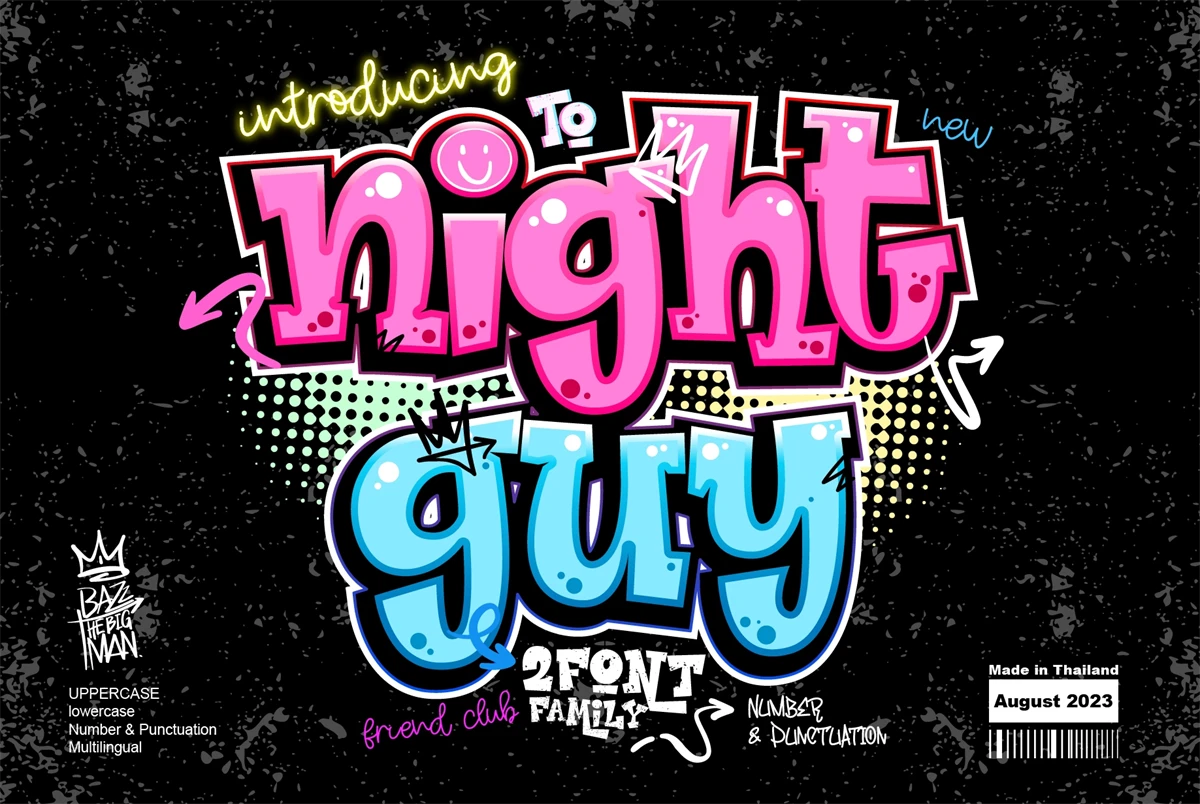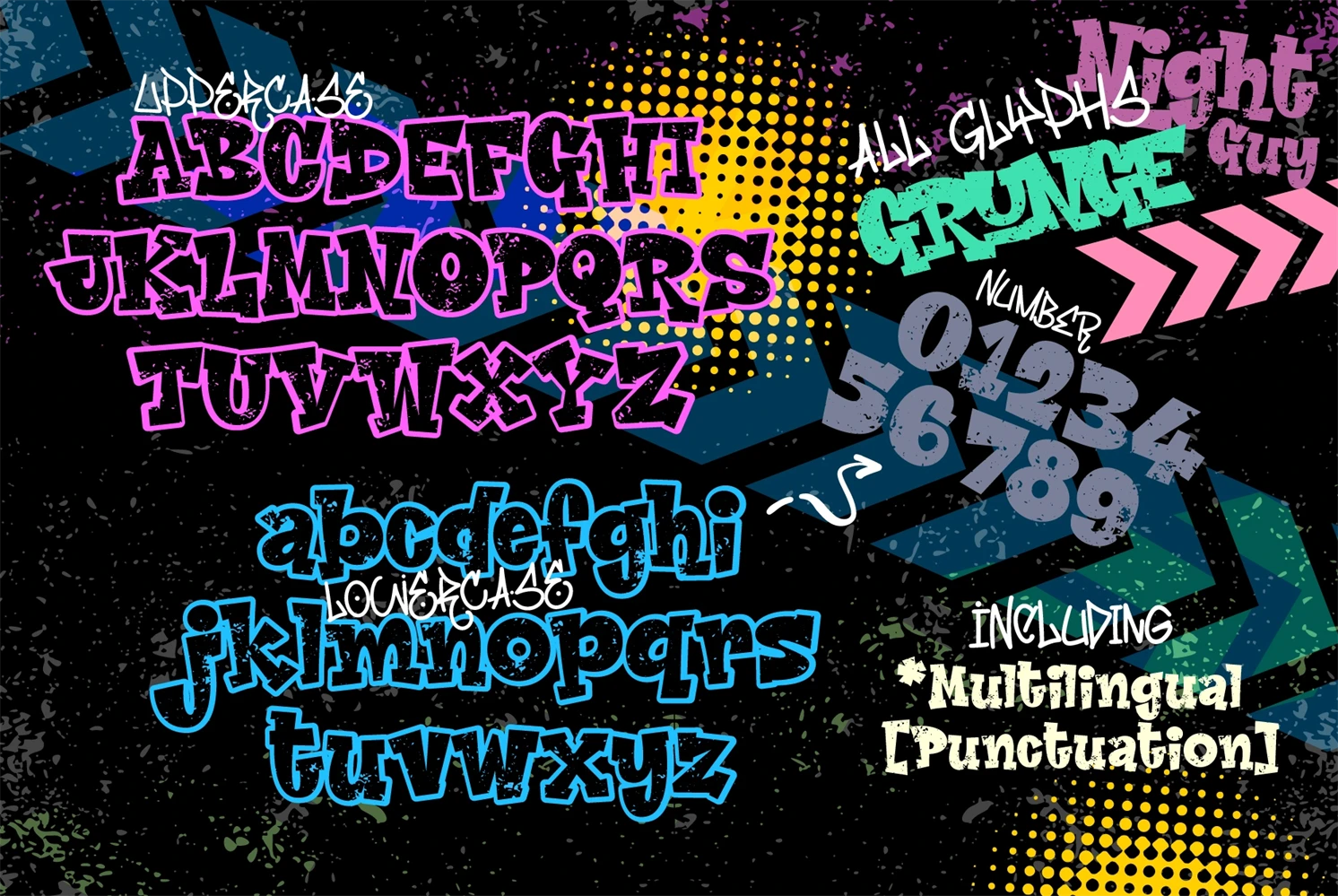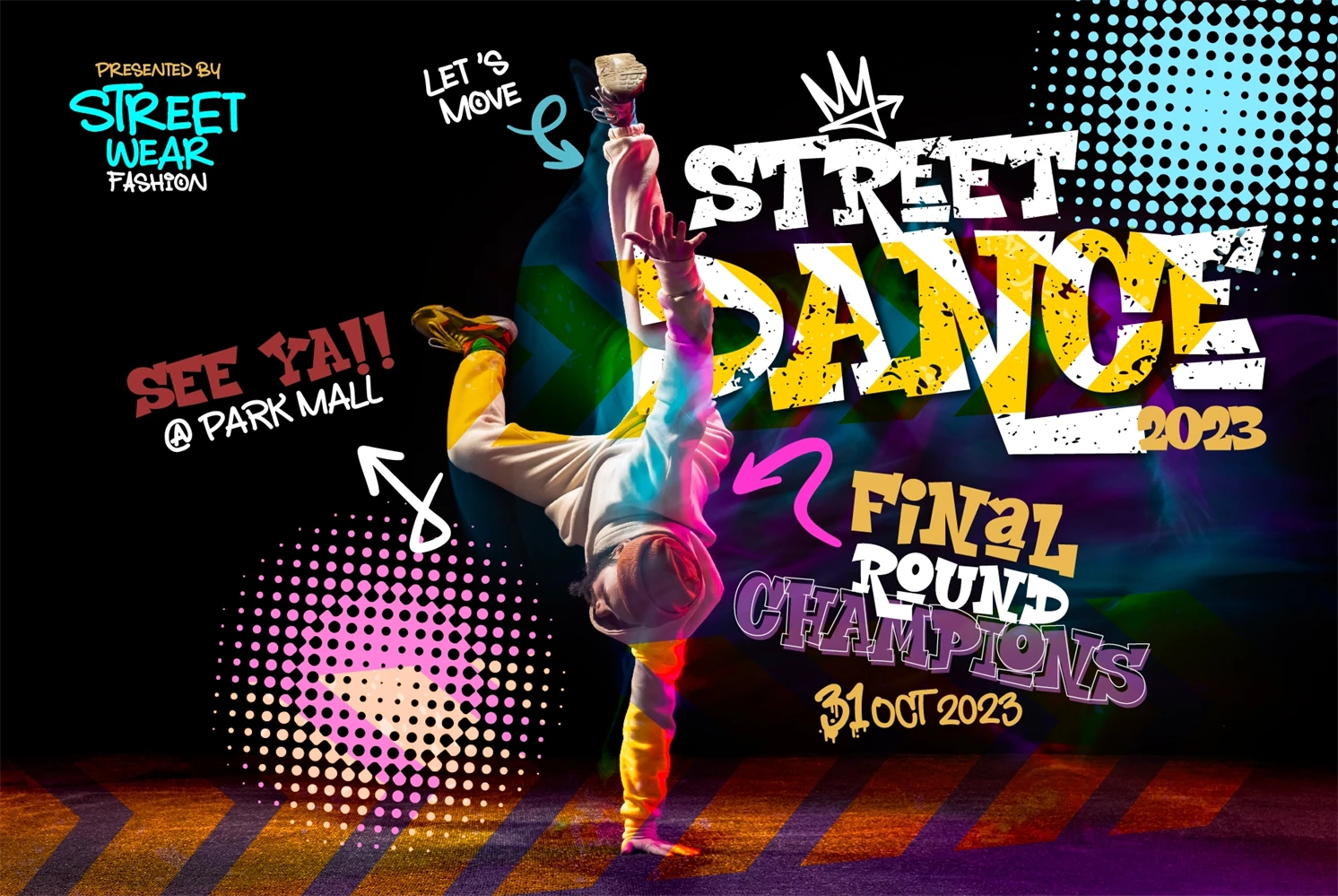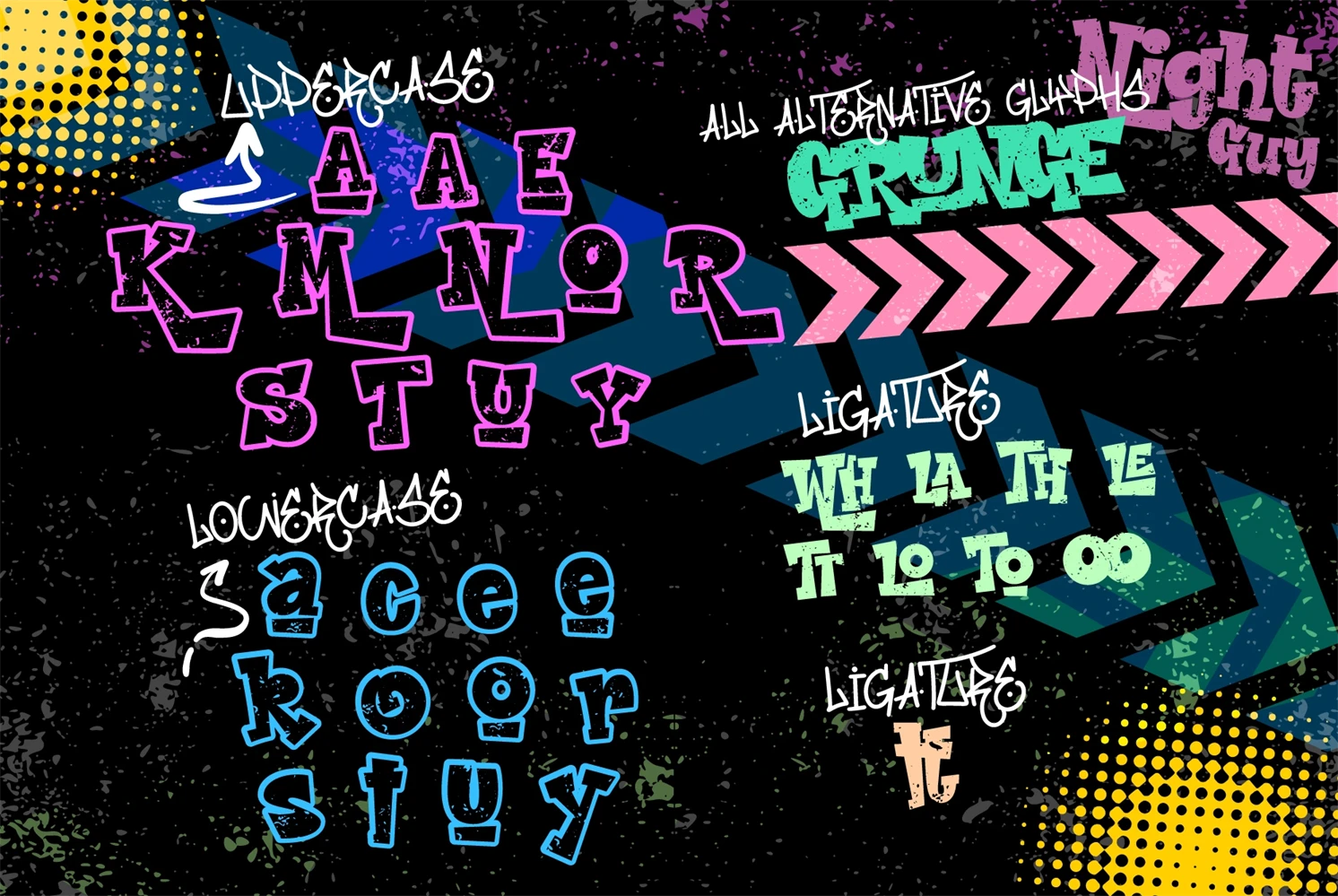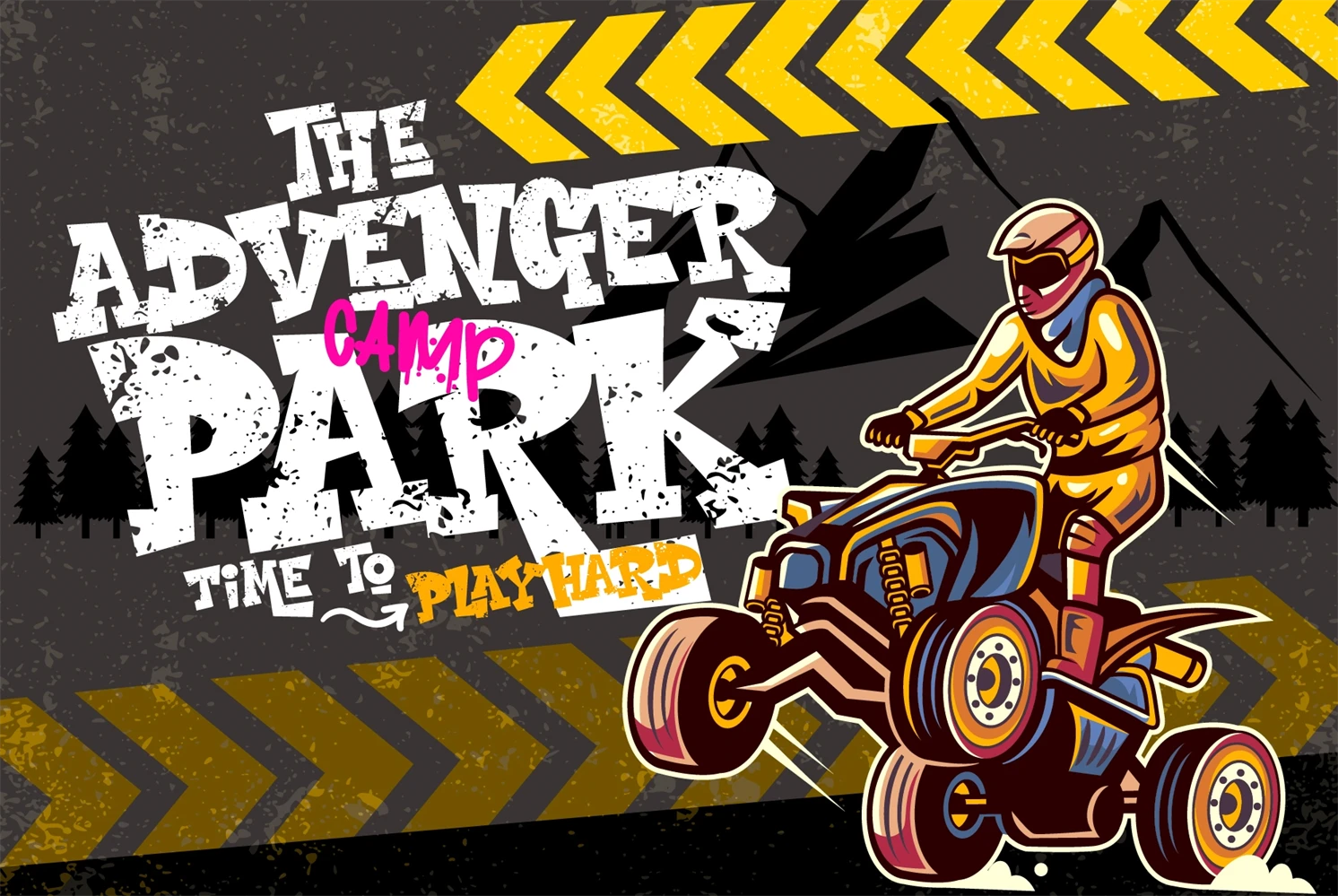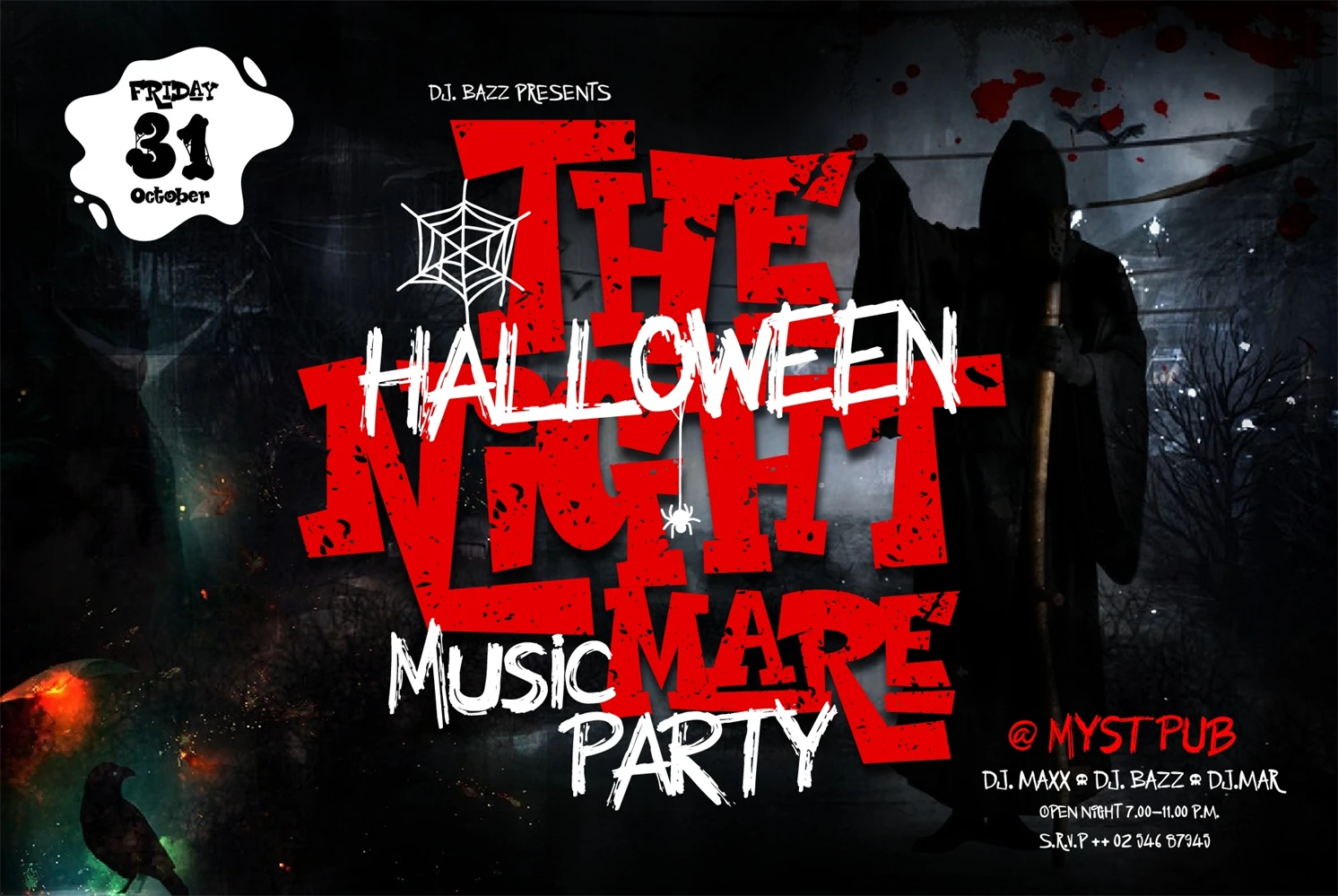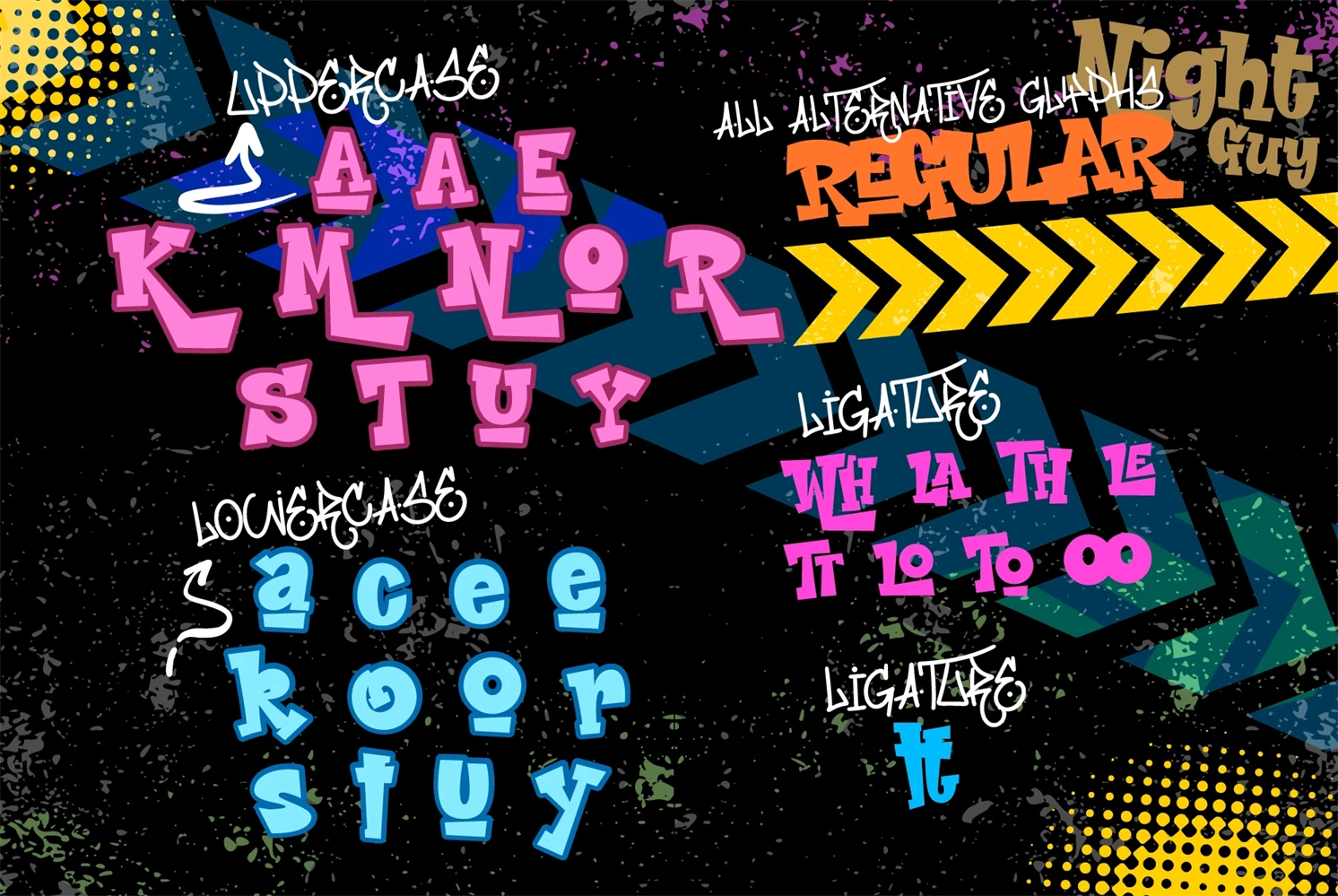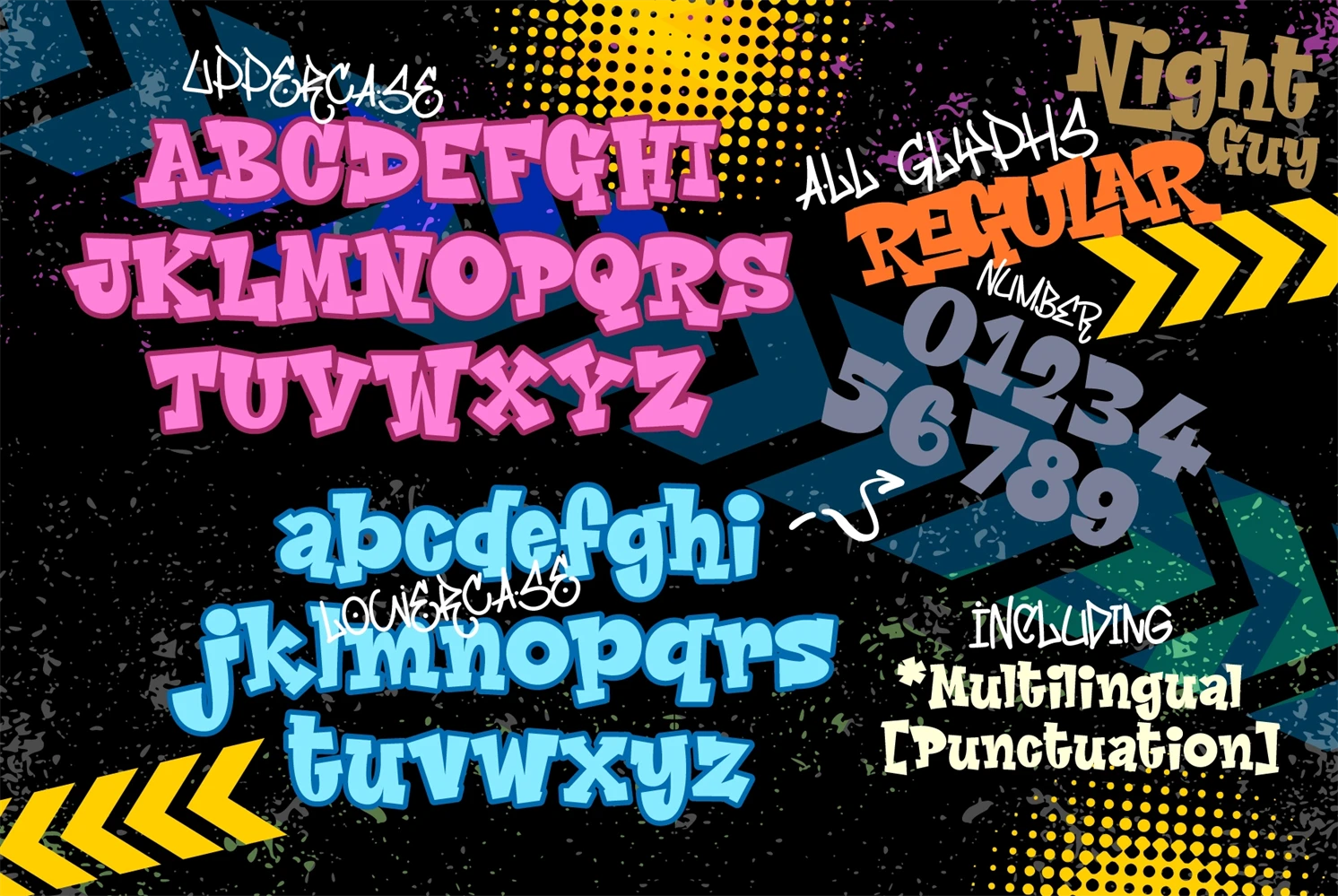
Night Guy is an incredibly unique and bold graffiti display font. Masterfully designed to become a true favorite, this font has the potential to bring each of your creative ideas to the highest level!